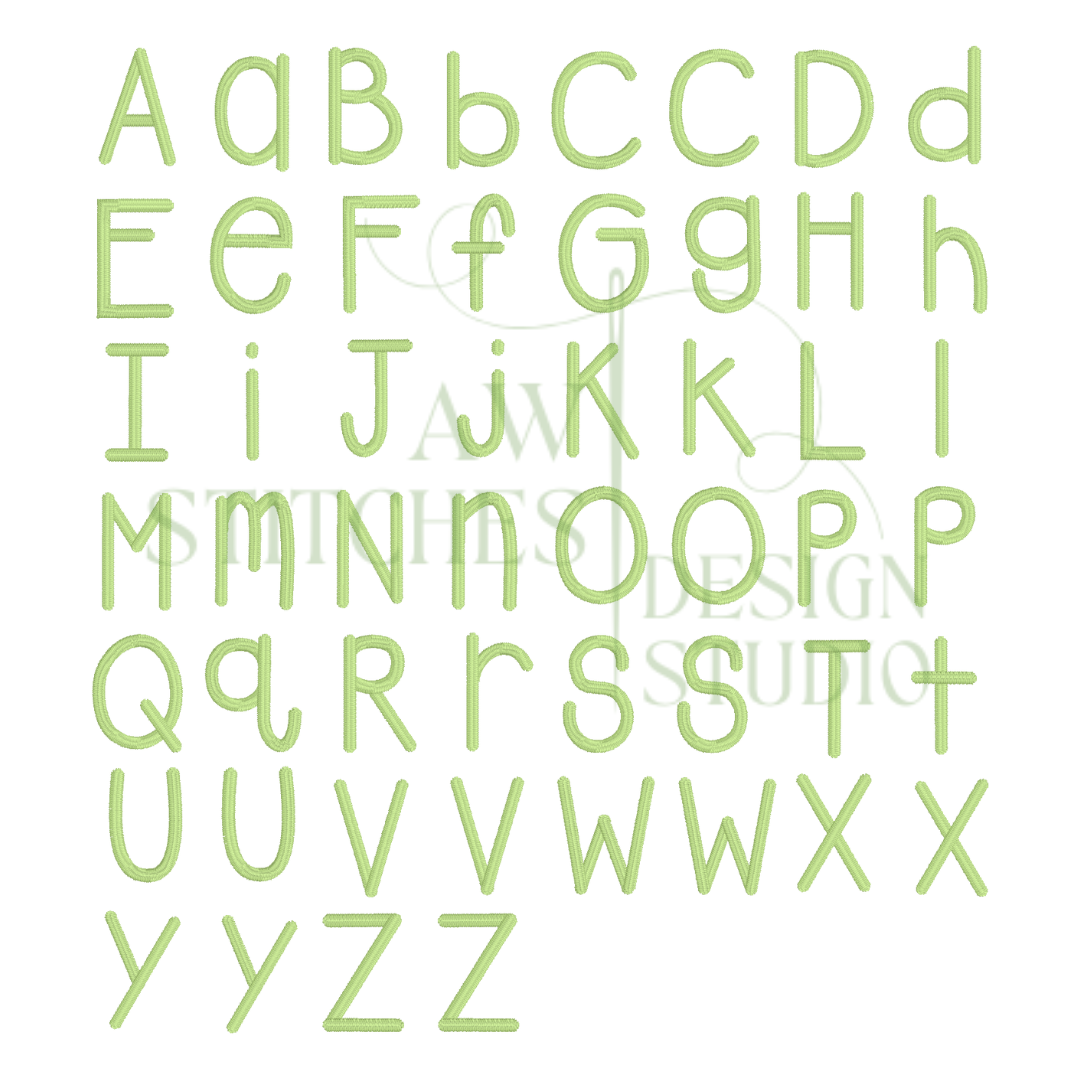
Perfect Print Font
The perfect print font satin stitch motif font for machine embroidery design file .75"- 3" upper and lowercase letters with BX is included in this download.
-26 lower and upper case letters A through Z